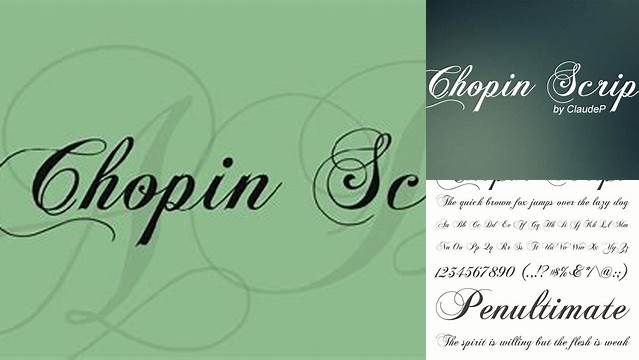
Hey guys! Are you on the hunt for a classy, elegant font to give your projects that special touch? Well, you've landed in the right spot! Today, we're diving deep into the world of Chopin Script Medium, a font that exudes sophistication and charm. Whether you're a graphic designer, a hobbyist, or just someone who loves beautiful typography, this article is your ultimate guide to finding and using Chopin Script Medium for free. Let's get started!
1. What is Chopin Script Medium Font?
Before we jump into downloading, let’s talk about what makes Chopin Script Medium so special. This font is known for its elegant, flowing lines and its classic, handwritten feel. It’s the kind of font that instantly adds a touch of class to any project. Think about invitations, logos, branding materials, and even digital designs – Chopin Script Medium can elevate them all. The font's medium weight gives it a balanced appearance, making it neither too bold nor too light, which makes it versatile for various design applications.
The Elegance and Charm of Chopin Script
Chopin Script Medium is more than just a font; it's a work of art. Its graceful curves and fluid strokes evoke a sense of timeless beauty, reminiscent of classic calligraphy. This elegance makes it a perfect choice for projects that require a touch of sophistication. Imagine using it for wedding invitations, where its delicate lines can convey romance and elegance. Or perhaps for a high-end brand logo, where its classic appeal can project an image of quality and refinement. Even in digital designs, such as website headers or social media graphics, Chopin Script Medium can add a touch of class that sets your work apart. It’s a font that speaks volumes without saying a word, conveying a sense of style and grace that few other fonts can match. Its versatility extends to various applications, making it a staple in the toolkit of designers who aim for a polished, professional look.
What exactly makes Chopin Script Medium stand out from the crowd? Well, there are several key characteristics that contribute to its unique appeal. First and foremost, it's a script font, meaning it mimics the flowing, connected strokes of handwriting. This gives it a personal, human touch that many other fonts lack. The “Medium” in its name refers to its weight, which strikes a perfect balance between being too thin and too bold. This makes it highly readable in a variety of sizes and applications. Additionally, Chopin Script Medium often includes elegant swashes and flourishes, adding to its decorative appeal. These features make it ideal for headlines, titles, and other prominent text elements where you want to make a statement. However, it’s also important to use it sparingly and in the right context, as too much can overwhelm a design. When used thoughtfully, Chopin Script Medium can bring a touch of sophistication and personality to any project.
Where Chopin Script Shines: Ideal Use Cases
So, where does Chopin Script Medium really shine? This font is incredibly versatile, but it truly excels in projects where elegance and sophistication are key. Think about wedding invitations, save-the-date cards, and other stationery for formal events. Its graceful lines and classic feel make it a natural fit for these occasions. Chopin Script Medium is also an excellent choice for branding materials, particularly for businesses that want to project a high-end, refined image. Consider using it for logos, business cards, and website headers for luxury brands, boutiques, or creative agencies. In the digital realm, it can add a touch of class to website designs, social media graphics, and email newsletters. Just remember to use it sparingly and pair it with a more readable sans-serif font for body text to ensure your message is clear. Whether you're designing for print or digital, Chopin Script Medium can help you create a lasting impression of style and quality.